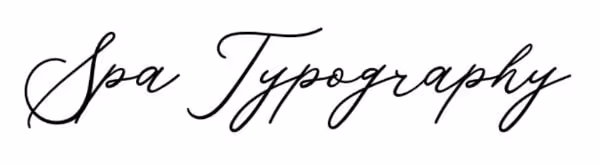
20 Spa Fonts to Use in Your Branding Design
Apart from relaxation and pampering, people connect spas to beauty and aesthetics. We’ll help you find the best font for spa branding that will impress your customers!
Spa centers often have luxurious branding, from their logos and website, to simple flyers. One of the key elements of effective branding design is the right choice of typography.
Here are some of the best fonts for spa branding you can use!
Fancy serif fonts
Serif typography is a classic, old category of fonts, and mostly connected to tradition, trustworthiness and, as many examples would suggest, fashion and wellness. From Vogue to Dior, you’ll see that in many cases, a serif font is the sole element of a classy logo. Here are some that would make a great base for your spa logo and other branding assets.
1. De Bambeet (free for personal use)
Characterized by swirly ligatures, a condensed width and a generous height of the letters, De Bambeet looks like perfectly classy typography fitting for spas and massage salons. It comes only in uppercase letters, so make sure you have a secondary font for body text. Use it with clean elements and a gentle color palette for the best effect.
2. Erotique (free for personal use)
Erotique has very distinctive and somewhat quirky shoes on the ends of letters, which all differ in width. That makes it a striking, but elegant font that will look good on your branding efforts. It is also a very contemporary font since slighter ligatures in serif fonts are very popular as of late.
3. New York (free for commercial use)
This completely free spa font is perfect for luxury design projects, as the designer himself claims. It’s simpler and less decorative than the previous two, but that makes it all the more suitable if you want to add other elements in your design, as it won’t oversaturate the final product.
4. Cassandra (free for personal use)
Cassandra is a gorgeous script font with dramatic, decorative ligatures. It’s a perfect spa logo font to attract a high-end clientele.
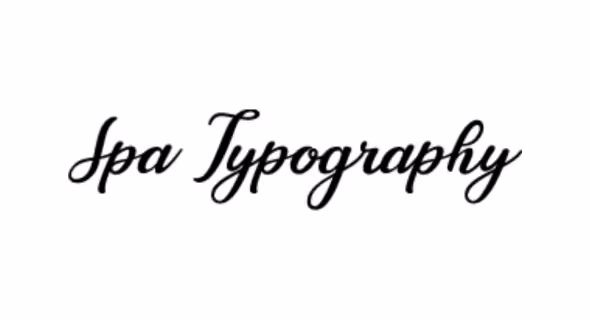
5. Atteron (free for personal use)
Here is another all-caps font, with generous spacing between letters and a very clean and crisp look. Personally, I love fonts that let the design ‘breathe’, as one might say, since I am not a fan of cramped designs with too much going on. This font is exactly that: typography that doesn't have too many elements but is classy and elegant enough in itself.
6. Salvalyn (free for personal use)
This stylistic serif font is a demo version, so it’s still a work in progress. You can however get the full version with a commercial license. It differs with decorative swashes and ligatures. The demo version is still elegant and makes a perfect logo font. The drastic difference between thin and thick lines is a noticeable element that will make your design stand out.
Eastern-inspired
Ancient Babylonian runes, Thai lettering and the free-flowing lines of Hindi calligraphy make some of the best fonts for spa branding. Don’t settle for a Papyrus, cause you can find other typography with an eastern and tribal feel.
7. Mahaputra (free for personal use)
Here is a font that plays perfectly on the line between classy and decorative, never leaning too much on either side. Even though it has wider knobs on the letters, it’s never too much and would look great on a gold embossed logo.
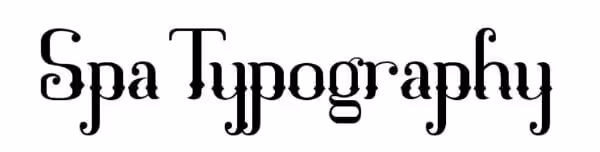
8. Sketsa Ramadhan (free for personal use)
This font is inspired by the Arabic calligraphy styles of the Middle East and makes a beautiful oriental and ornamental font style for your spa branding needs. It comes in TTF and OTF files, meaning it's editable. However, for more than personal needs and editing for branding needs, you’ll need to purchase a commercial license.
9. Kana (free for commercial use)
Here is another decorativesspa logo font that looks like it’s inspired from indigenous art. The swirls make it look three-dimensional, giving it a unique look. If you want your customers to think of summer and beaches when they see your logo, Kana is the font you need.
10. Budaya (free for personal use)
The final entry in the Eastern-inspired fonts category comes from an East-Asian aesthetic, and looks like carved Chinese characters, but turned into the Latin alphabet. Budaya offers bolder and more noticeable typography, so try not to overdo it with too many elements.
Roman and Greek-inspired
Many fonts today are inspired by wood and stone carvings from ancient times. One of those groups is serif fonts. But, a wider and niche group would be fonts that still bear a strong resemblance to Roman and Greek fonts.
11. Roman SD (free for commercial use)
This font was based on the lettering on Trajan’s column in Rome, but with a calligraphic feel in place of the stone carving look. So it’s no surprise that the resemblance is uncanny. Ancient Rome is also well known for its habit of visiting thermal baths, many of which still exist. So, a Roman-inspired spa font is a great choice even today.